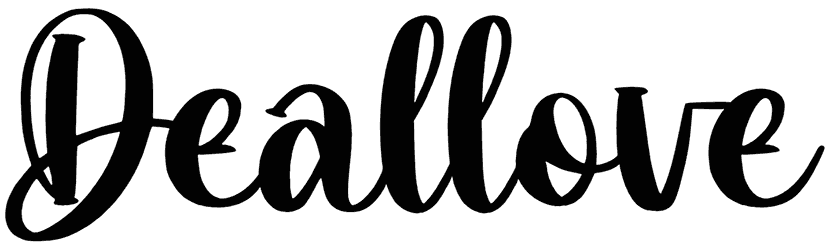
Deallove Font
Right now, get kicked out of performing this invitation font with a progressive vibe before anyone else uses it. Here, thanks to RB, the Deallove font is a natural blessing with soft twirling lettering that comes up to highlight your graphical displays.
Valentine’s posters, business cards, cosmetic logos, signs, and other departments that require a charming, generous touch are missing such a font. Definitely, you will be on the ball by adding this A-Z font to any task.
DEALLOVE